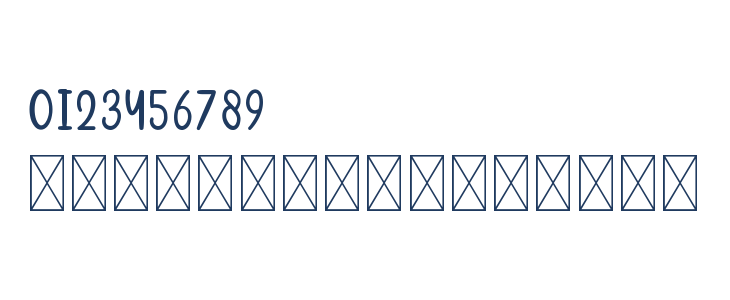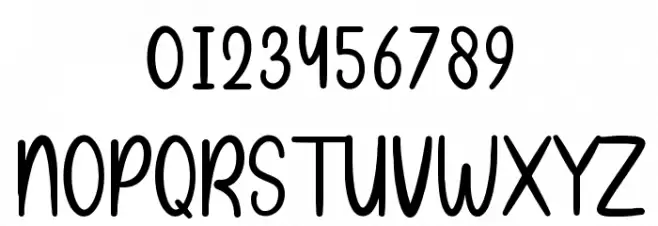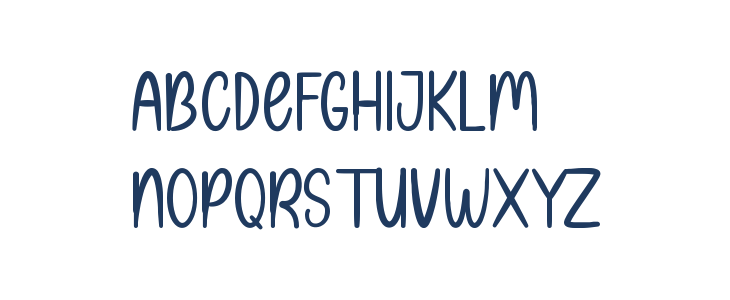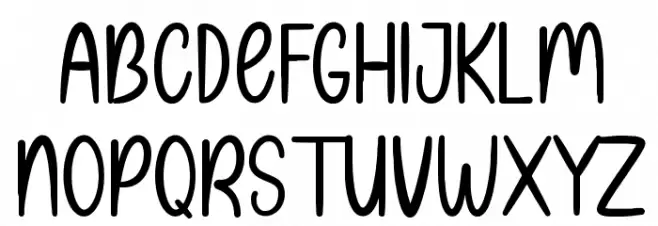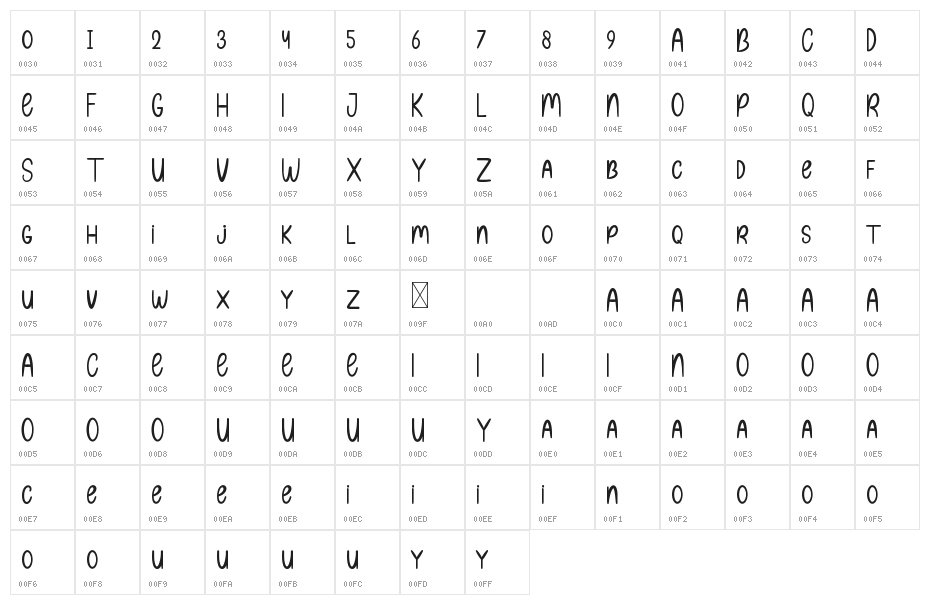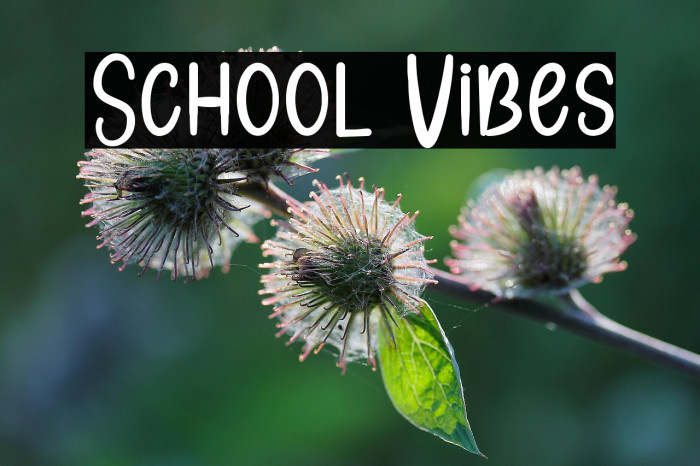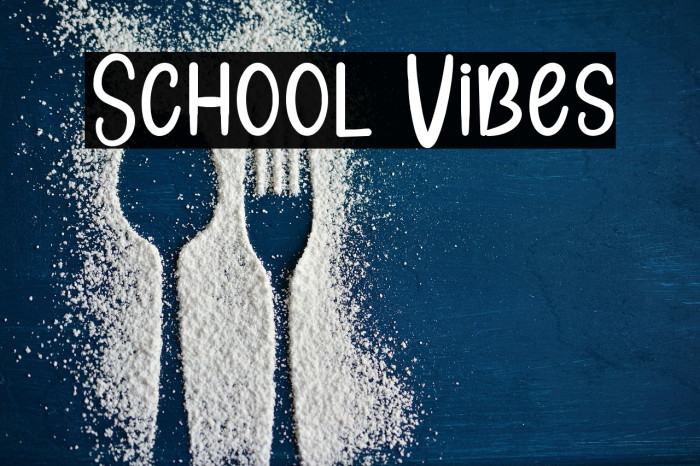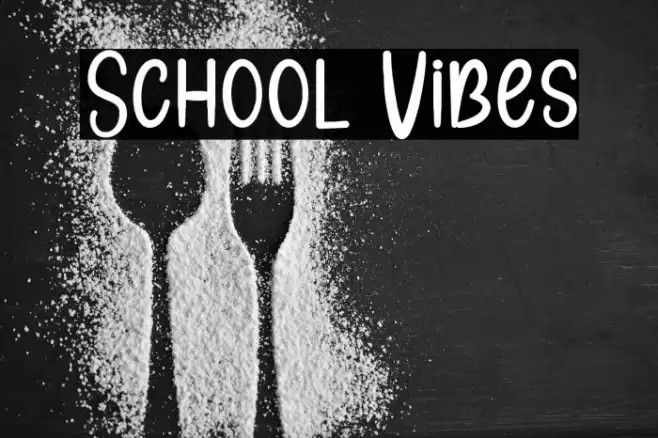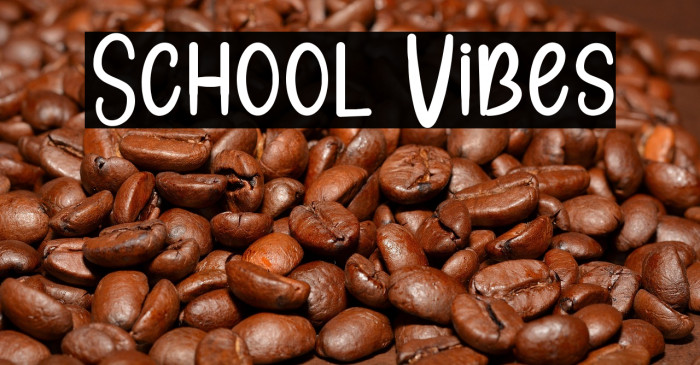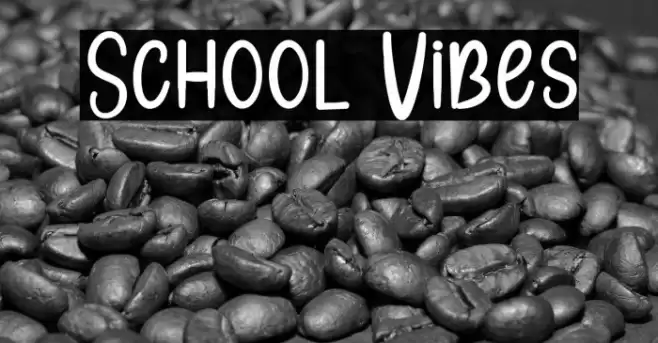
School Vibes Font
School Vibes Description
A playful, handwritten style font with a casual and friendly appearance, featuring slightly irregular and rounded characters.
| Overall Style | Casual, Playful, Friendly |
| Use Case | Headlines, Body text, Logos, Invitations |